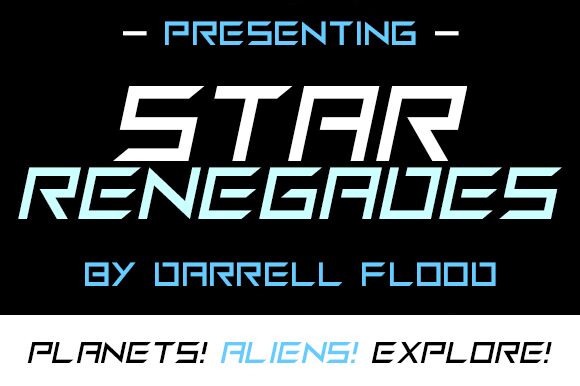
Star Renegades Italic
Star Renegades Italic is a display font that perfectly captures the futuristic essence of any project. Designed by Darrell Flood, this semi-light typeface features an extra-expanded width, making it ideal for headlines and titles that demand attention. The italic style adds a touch of drama and intrigue to any design, while the Star Renegades font family offers versatility for various creative projects. Use it for sci-fi movie posters, video game titles, futuristic product packaging or even in digital art pieces. With its unique design and sleek appearance, Star Renegades Italic is perfect for creating a bold statement in any project.